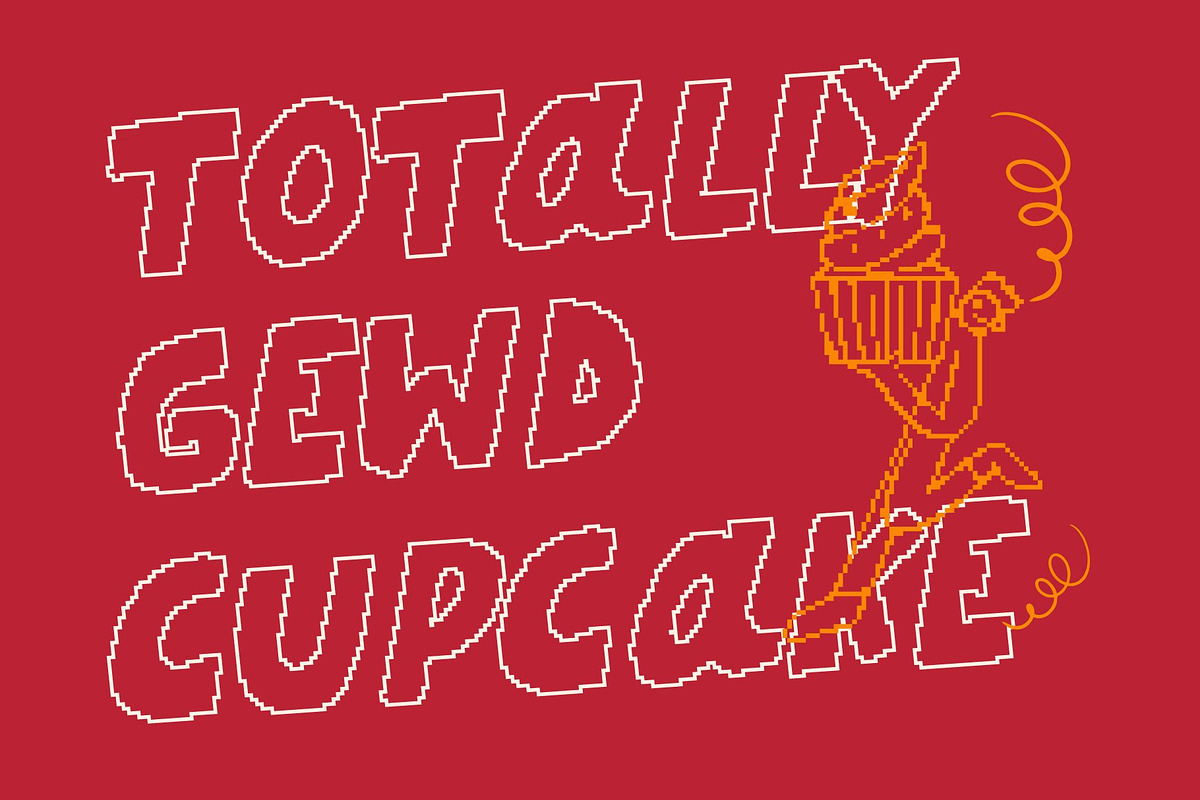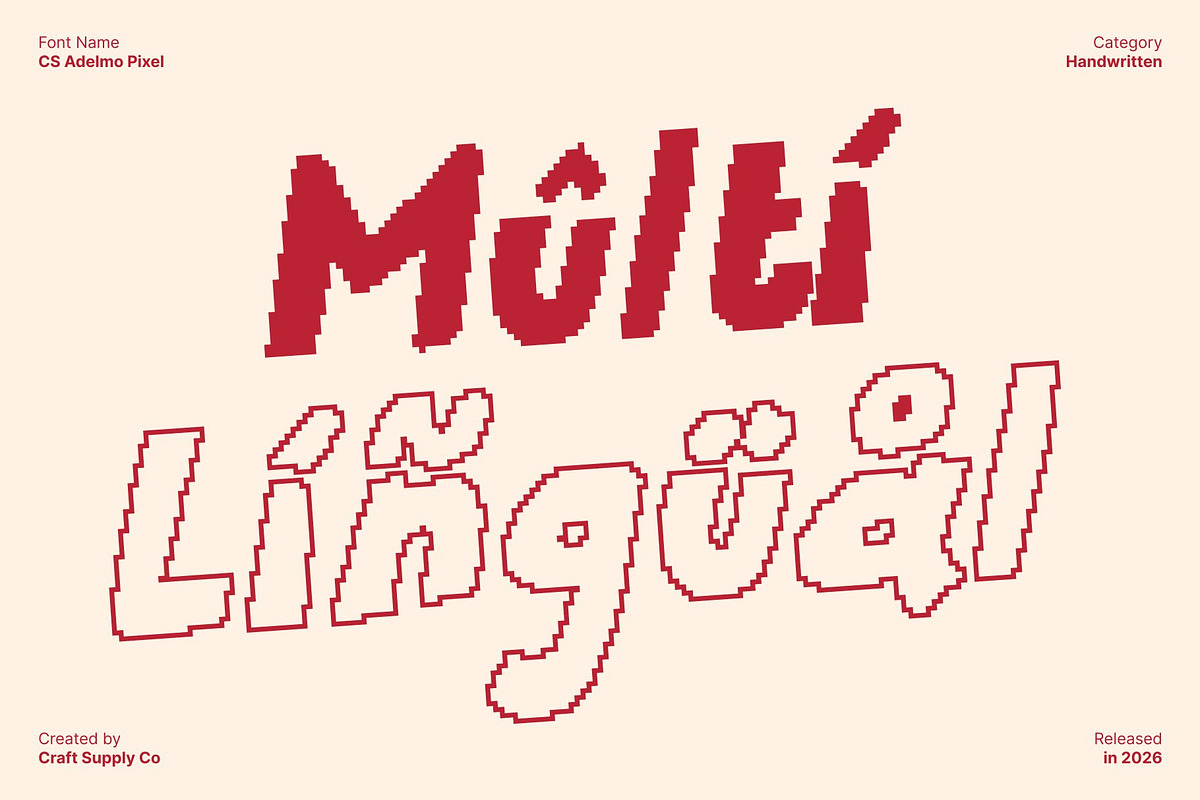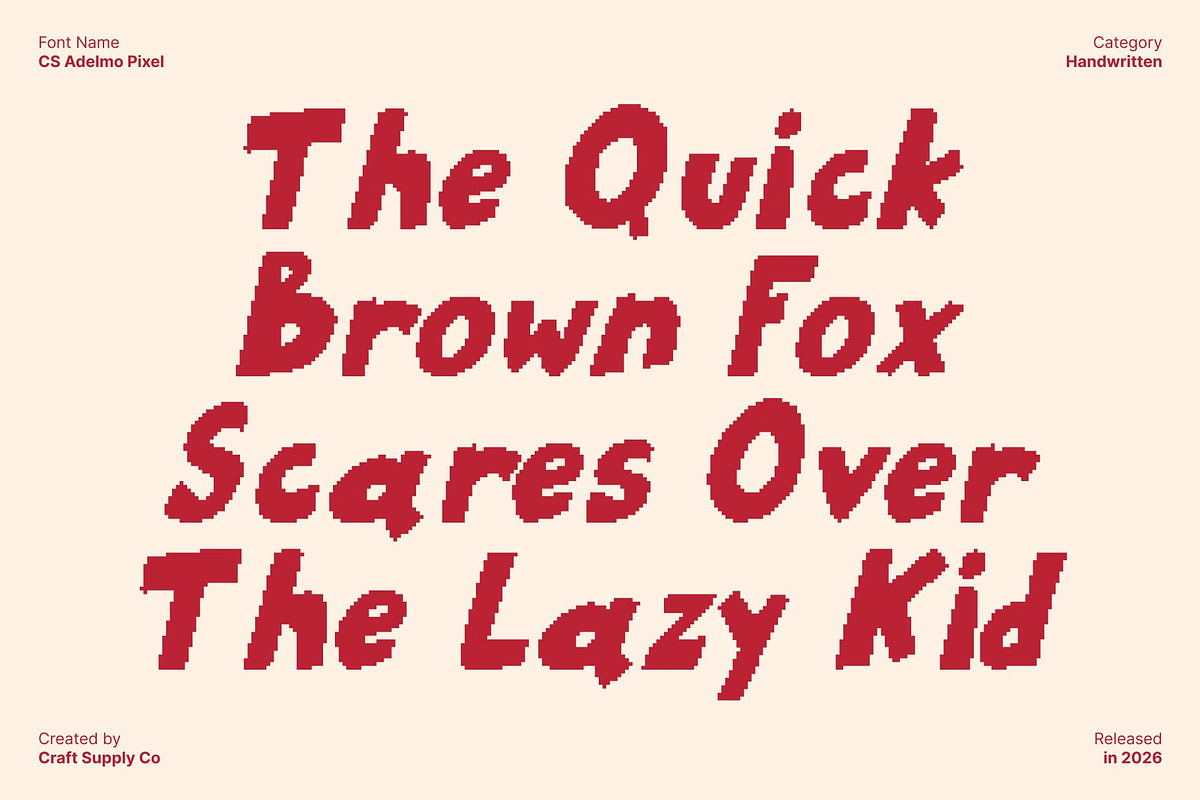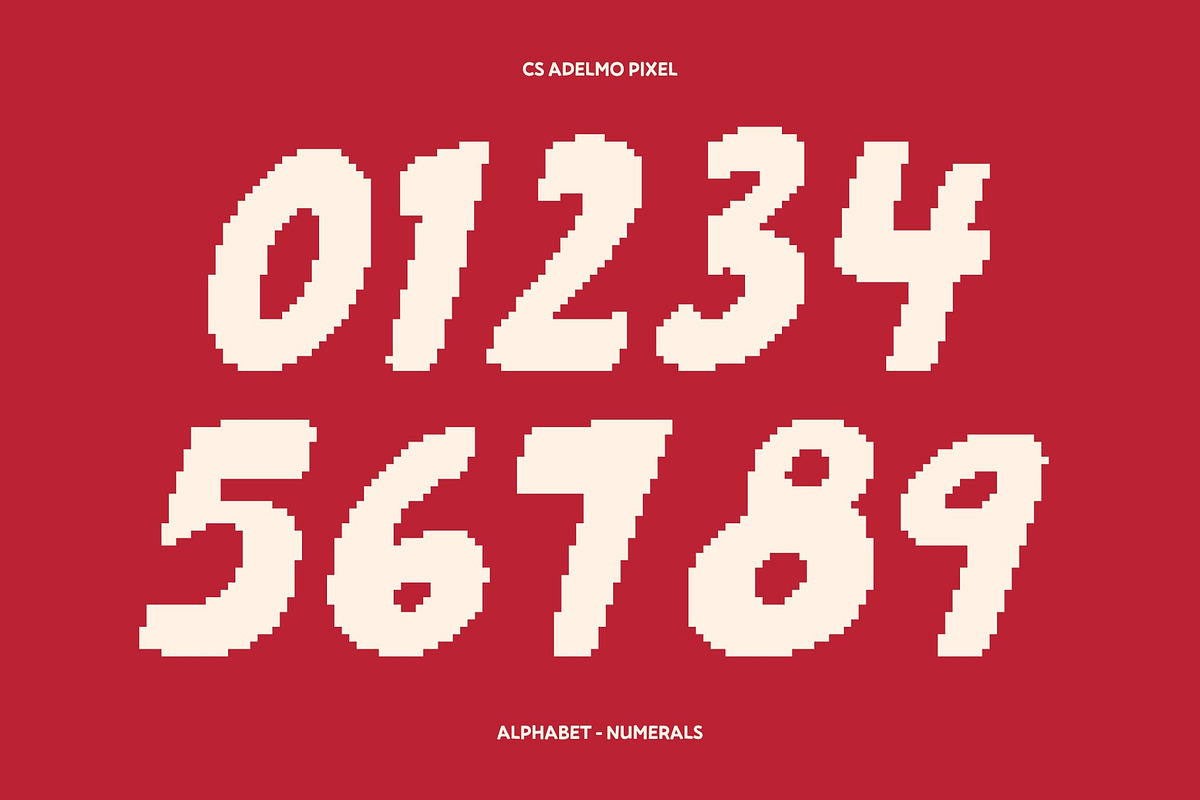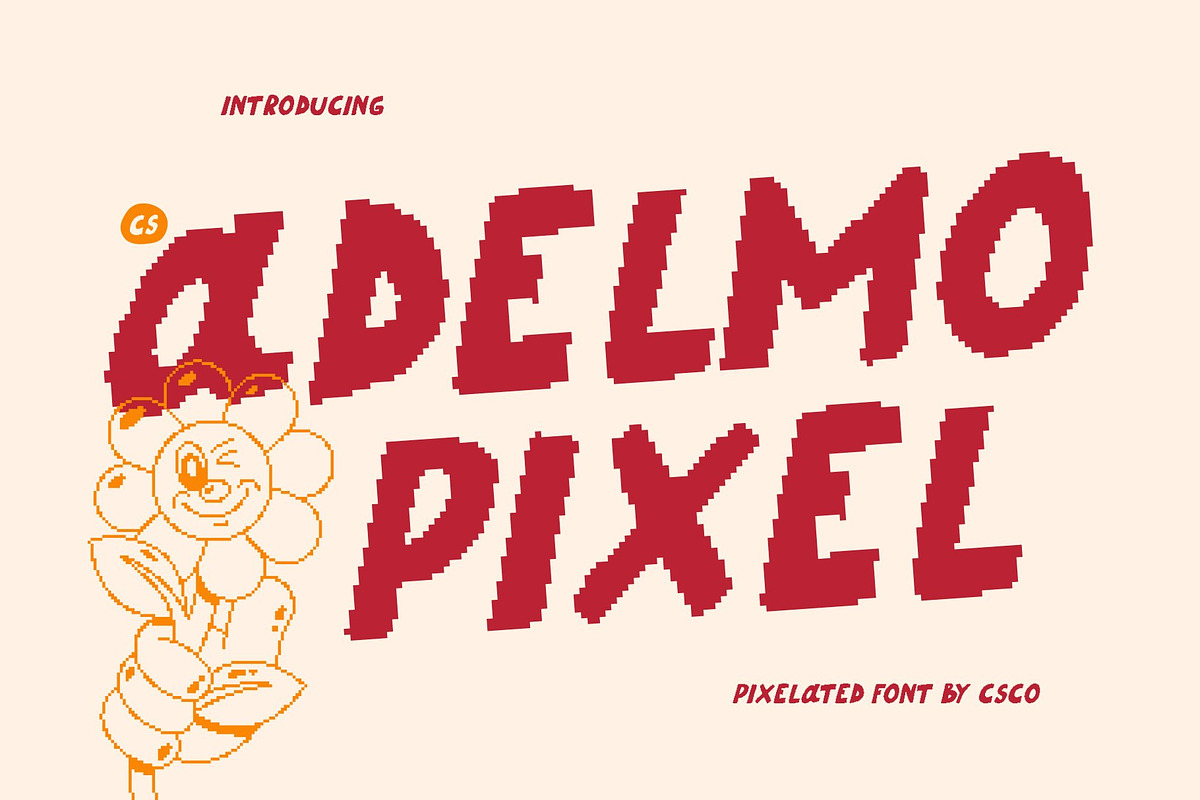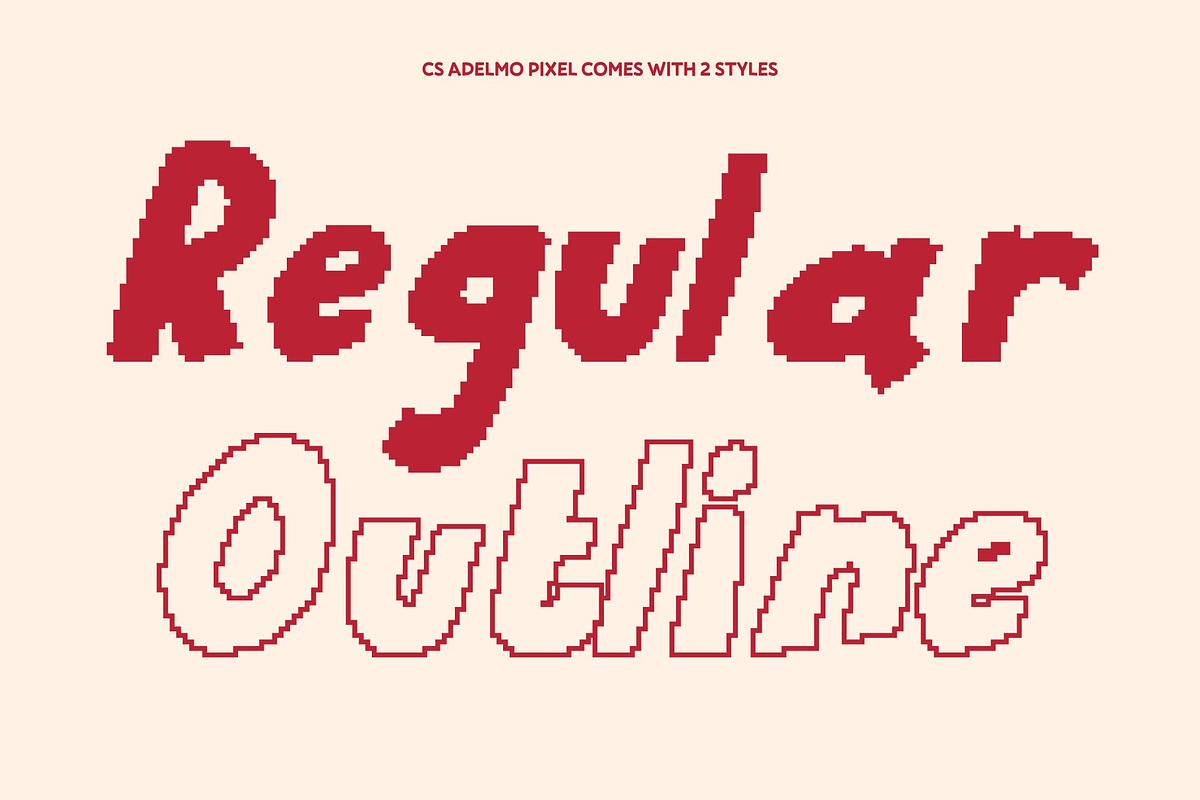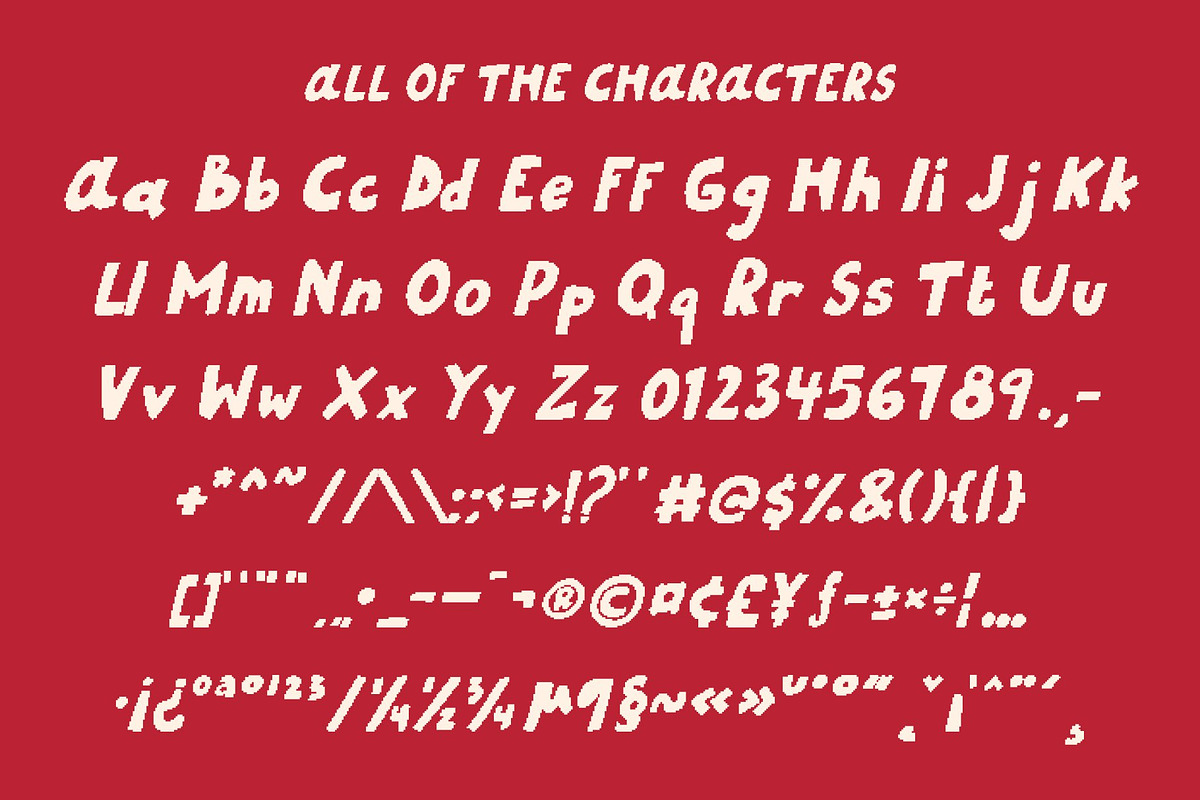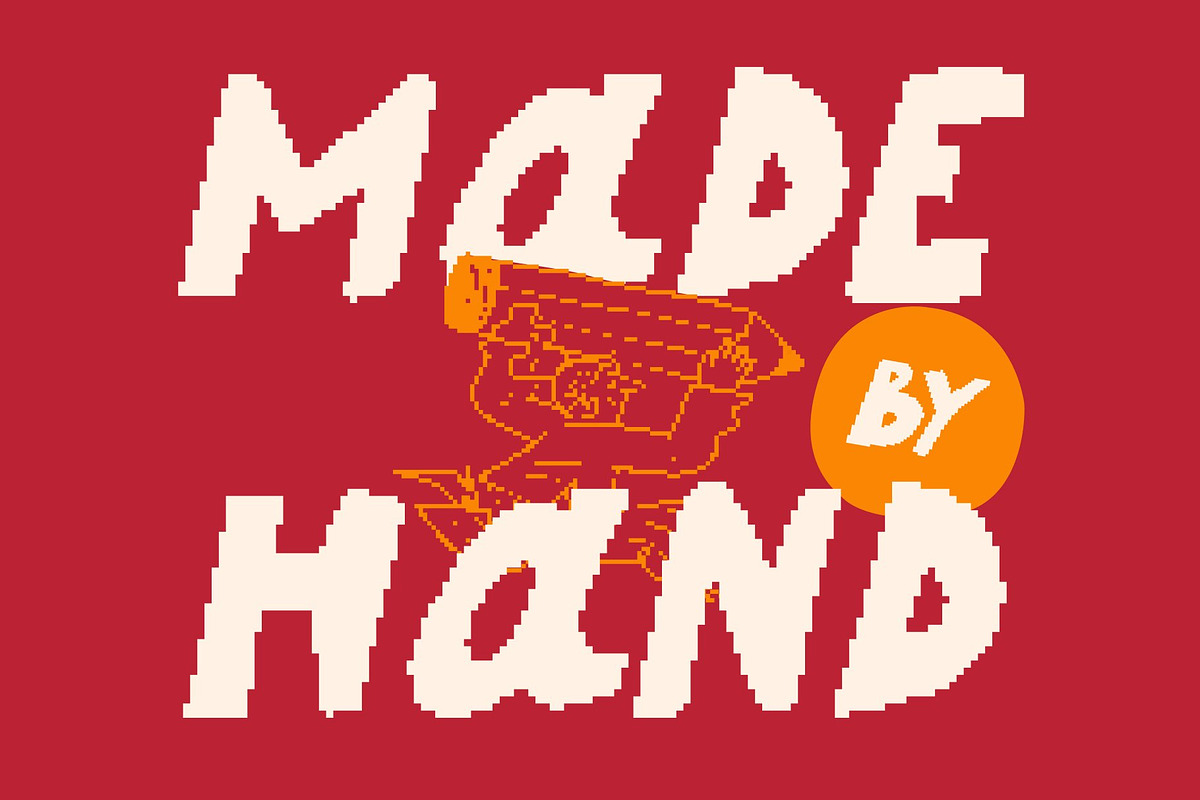
CS Adelmo Pixel
CS Adelmo Pixel – Modern Handwritten Display with Cheerful Retro-Digital Expression
Modern Character with Playful Handwritten Pixel Charm This is a modern display font that blends lively handwritten character with distinctive pixel detailing. Its naturally drawn letterforms are translated into a pixel-based structure, creating a unique fusion of human warmth and old-digital aesthetics. This combination results in a font that feels playful, expressive, and nostalgic evoking retro.
Pixelated Strokes with an Authentic Personal Touch The handwritten essence of this font is preserved through organic curves and rhythmic strokes, now reimagined in pixel form. Each letter feels intentionally imperfect, celebrating both handcrafted expression and early digital visuals. This pixel texture adds an old-school, 8-bit-inspired charm while maintaining clarity and personality, giving designs a distinctive retro-modern feel.
Cheerful Energy with Retro 8-Bit Vibes With its playful shapes and pixelated construction, this font radiates cheerful energy and creative freedom. The font delivers a joyful tone while channeling classic digital nostalgia, making it perfect for designs that aim to feel fun, friendly, and visually engaging.
Perfect for Titles, Posters, Branding, and Creative Projects This font is ideal for titles, posters, branding, and creative projects that demand personality and charm. It works beautifully for youthful branding, product packaging, event graphics, social media visuals, and retro-inspired designs. By combining handwritten expression with pixel aesthetics, this font delivers a memorable look that feels old digital, modern, and irresistibly cheerful.
- CS Adelmo Pixel Regular
- CS Adelmo Pixel Outline